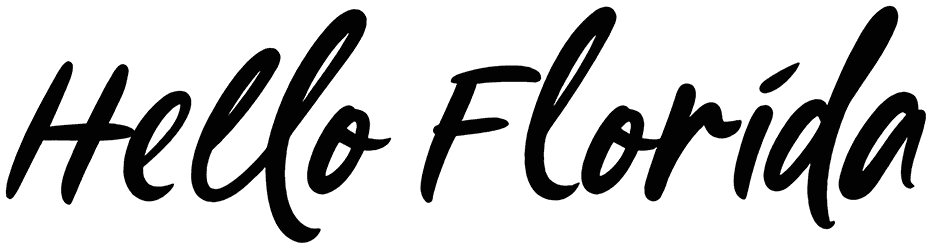
Hello Florida Font
Enjoy that carefree touch of Hello Florida in your lettering and let its inviting tone show you how to reach out to the audience and win them over almost instantly. Island fonts are usually pretty convincing that way.
As you can see, those cursive italic letters of Hello Florida make things even more exciting with their summer theme. That means you’ve just got yourself an awesome handwritten font to use in your vacation posters, mugs, accessory labels, and so on.